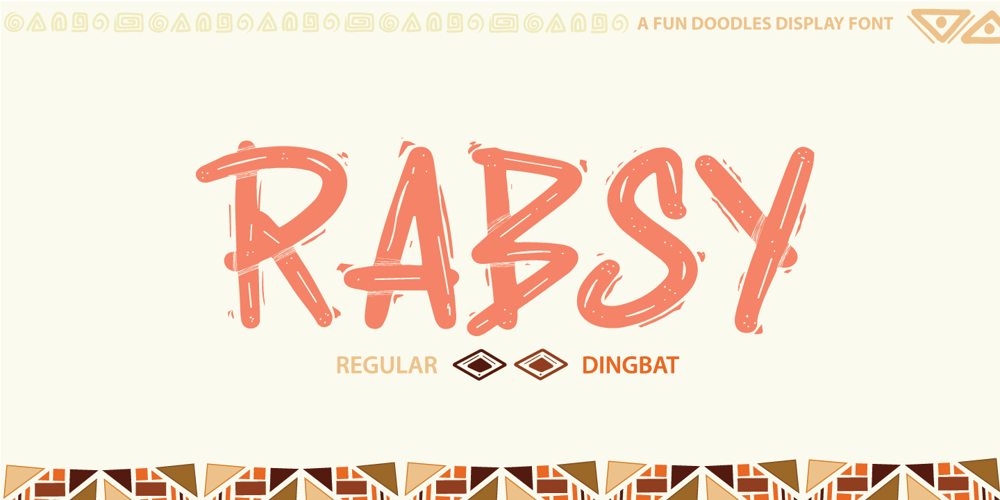
Rabsy Font Family was designed by Degi Kurniawan and published by D&K Project. Rabsy contains 2 styles and family package options. Rabsy is a unique cartoon font with a doodles concept. The included dingbat doodles pattern makes it easy for you to make unique patterns, and make fun display tittle. A mixed-case font (Rabsy and Rabsy Pattern) with lots of combination possibilities, makes for great fun! It is good for logotype, stickers, fun kids signs, and other lettering projects. This fun is perfect combination uppercase and lowercase. Rabsy File Downloaded: – UPPERCASE and lowercase – Lots of doodles Rabsy Pattern 1-9, A-Z and a-z (more fun with lots of combination possibilities) – Punctuation and numeral – Extended Latin characters for language support. Please let me know in the comments what you think or if you have any issues or queries, If you have any questions about licensing, need help with a typeface, or would like to request a new feature, drop me a message. Thank you, D&K Project